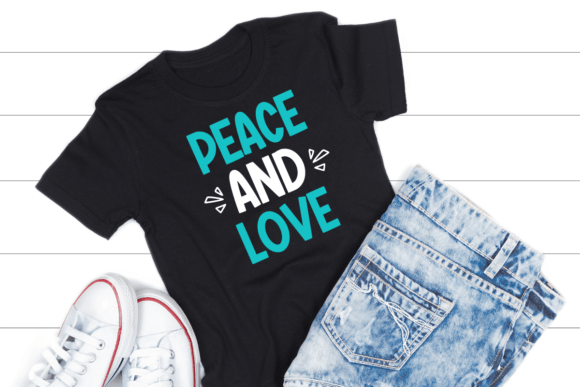
Introducing Back Space Font: The Perfect Blend of Fun, Quirkiness, and Elegance
Are you tired of using the same old fonts for your design projects? Look no further than Back Space Font, a fun and quirky display font that adds a touch of elegance to any design. With its incredibly distinct and timeless style, Back Space Font is sure to fall in love with its unique charm and versatility.
What is Back Space Font?
Back Space Font is a display font designed to make a statement. Its unique blend of fun, quirkiness, and elegance makes it perfect for a wide range of design projects, from creative branding and advertising to stylish signage and packaging. Whether you’re looking to add a touch of whimsy to your design or create a bold and eye-catching statement, Back Space Font is the perfect choice.
Key Features of Back Space Font
- Unique and Distinctive Style: Back Space Font boasts an incredibly distinct and timeless style that sets it apart from other fonts.
- Fun and Quirky: With its playful and quirky design, Back Space Font adds a touch of fun and personality to any design project.
- Elegant and Sophisticated: Despite its fun and quirky nature, Back Space Font also exudes a sense of elegance and sophistication, making it perfect for high-end designs.
- Versatile: Back Space Font is versatile and can be used for a wide range of design projects, from creative branding and advertising to stylish signage and packaging.
What Makes Back Space Font So Special?
So, what sets Back Space Font apart from other fonts? Here are a few reasons why Back Space Font is a cut above the rest:
- Hand-Crafted with Love: Back Space Font is carefully hand-crafted with love and attention to detail, ensuring that every letter and character is perfect.
- Timeless Design: Unlike trendy fonts that quickly go out of style, Back Space Font boasts a timeless design that will remain stylish for years to come.
- Highly Legible: Despite its unique and quirky design, Back Space Font is highly legible, making it perfect for use in a wide range of design projects.
Tips and Tricks for Using Back Space Font
Here are a few tips and tricks to help you get the most out of Back Space Font:
- Experiment with Different Sizes: Back Space Font looks great in a variety of sizes, so don’t be afraid to experiment with different font sizes to find the one that works best for your design project.
- Play with Colors and Textures: Add an extra layer of depth and interest to your design by playing with different colors and textures.
- Use it as a Statement Font: Back Space Font is perfect for use as a statement font, so don’t be afraid to use it to make a bold and eye-catching statement.
In conclusion, Back Space Font is a fun and quirky display font that adds a touch of elegance to any design project. With its incredibly distinct and timeless style, Back Space Font is sure to fall in love with its unique charm and versatility. Whether you’re looking to add a touch of whimsy to your design or create a bold and eye-catching statement, Back Space Font is the perfect choice.
- What is Back Space Font?
- Back Space Font is a fun and quirky display font designed with a touch of elegance, perfect for a wide range of design projects.